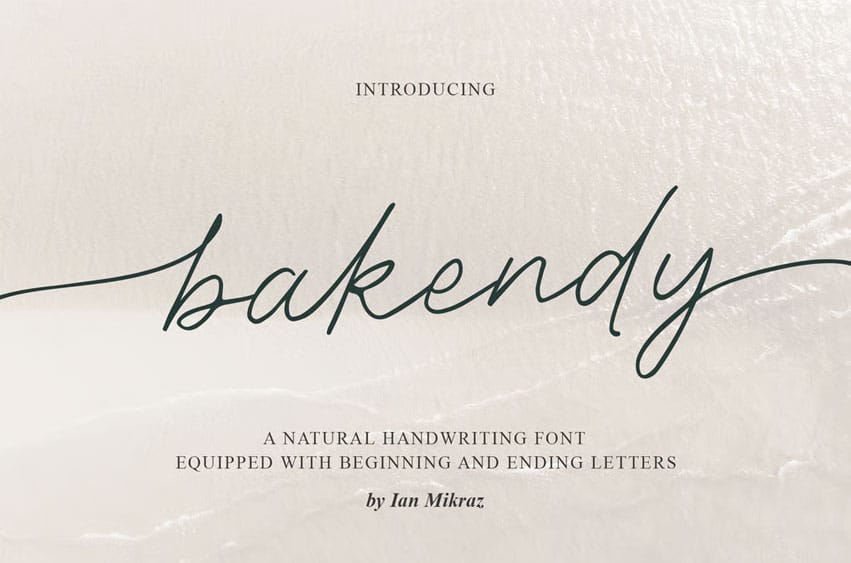
Bakendy Font is a natural handwritten script with an elegant, modern signature vibe. Its organic monoline strokes and airy rhythm make headlines, logos, invitations, menus, product labels, and social posts feel intimate and refined. Perfect for wedding suites, boutique branding, and lifestyle packaging where warmth and authenticity matter.
Designed for real-world work, Bakendy includes uppercase & lowercase letters, numbers, punctuation, and multilingual Latin support. OpenType features bring your typography to life: beginning and ending swashes, contextual alternates, and smooth ligatures for silky, connected words. Kerning is carefully tuned so your text looks polished right out of the box.
- Standart ligatures
- Stylistic Alternates